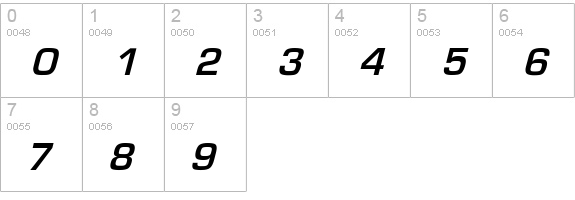
EurostileObl-Bo Font Details
EurostileObl-Bo font is a modern and stylish typeface that exudes professionalism and sophistication. Its sleek geometric design and sharp angles make it perfect for creating eye-catching headers, titles, and logos. The bold and oblique style of this font adds a dynamic and contemporary touch to any design project. What's even better is that EurostileObl-Bo font is available for free download at FontsMarket.com. This means you can easily elevate your designs with this high-quality typeface without any cost. Whether you're working on a branding project, website design, or any other creative endeavor, EurostileObl-Bo font is sure to make a strong impact. Download it now and add a touch of modern elegance to your work!